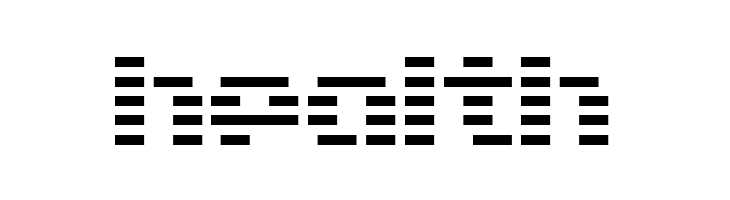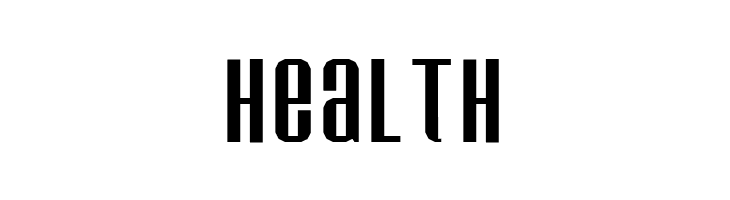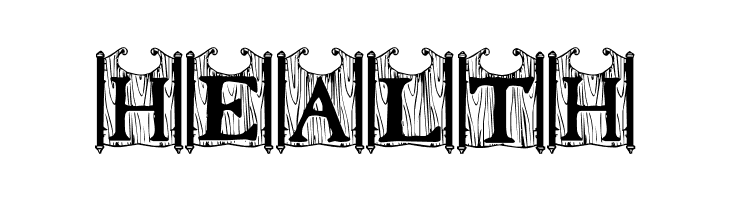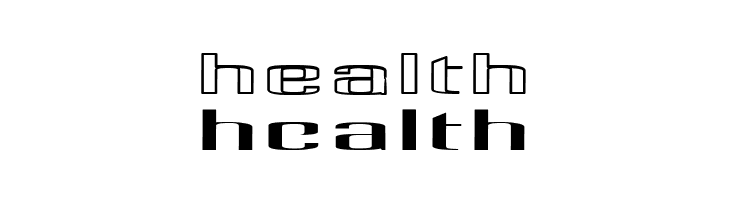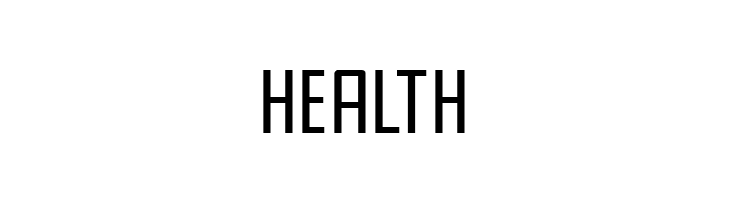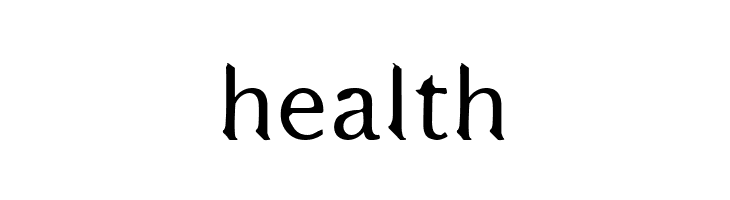
A pixelated, bitmap-style font with a digital, retro aesthetic.
A bold, condensed font with a modern yet vintage style, ideal for headlines.
A bold, modern font with geometric shapes and high contrast.
A bold, serif font with a medieval flair and sharp, angular serifs.
A bold, slab serif font with strong, well-defined characters.
A bold, condensed blackletter font with intricate details and a historic feel.